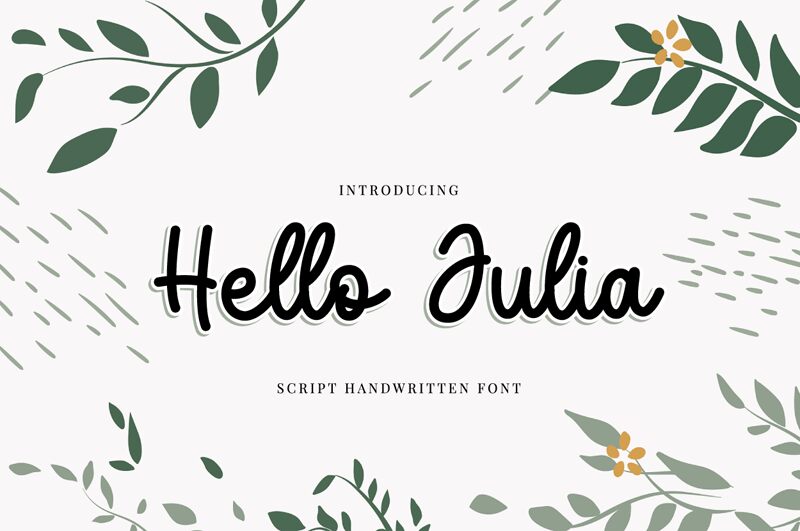
Hello Juliademo
Hello Juliademo is a stunningly crafted handwritten font designed by Letter Art Studio. With its semi-light weight, this font exudes elegance while maintaining a playful and whimsical feel. Ideal for a variety of projects, Hello Juliademo is perfect for adding personality and charm to logos, invitations, greeting cards, social media graphics, and more. Whether you're looking to create a vintage-inspired design or add some flair to your modern branding strategy, this semi-light typeface will help you stand out from the crowd. Get creative and let Hello Juliademo elevate your next project!